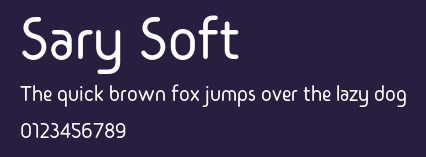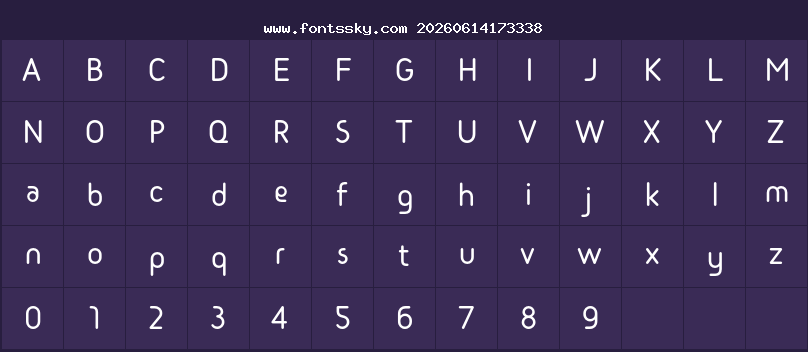
Sary Soft Preview
• Font Name: Sary Soft
• Designer: Zainelabdeen Mustafa
• Manufacturer: Zain Mustafa
About Sary Soft.otf
Sary Soft.otf is a modern, elegant sans-serif font designed for ultimate readability and visual harmony. Perfect for branding, headlines, web design, and print materials.